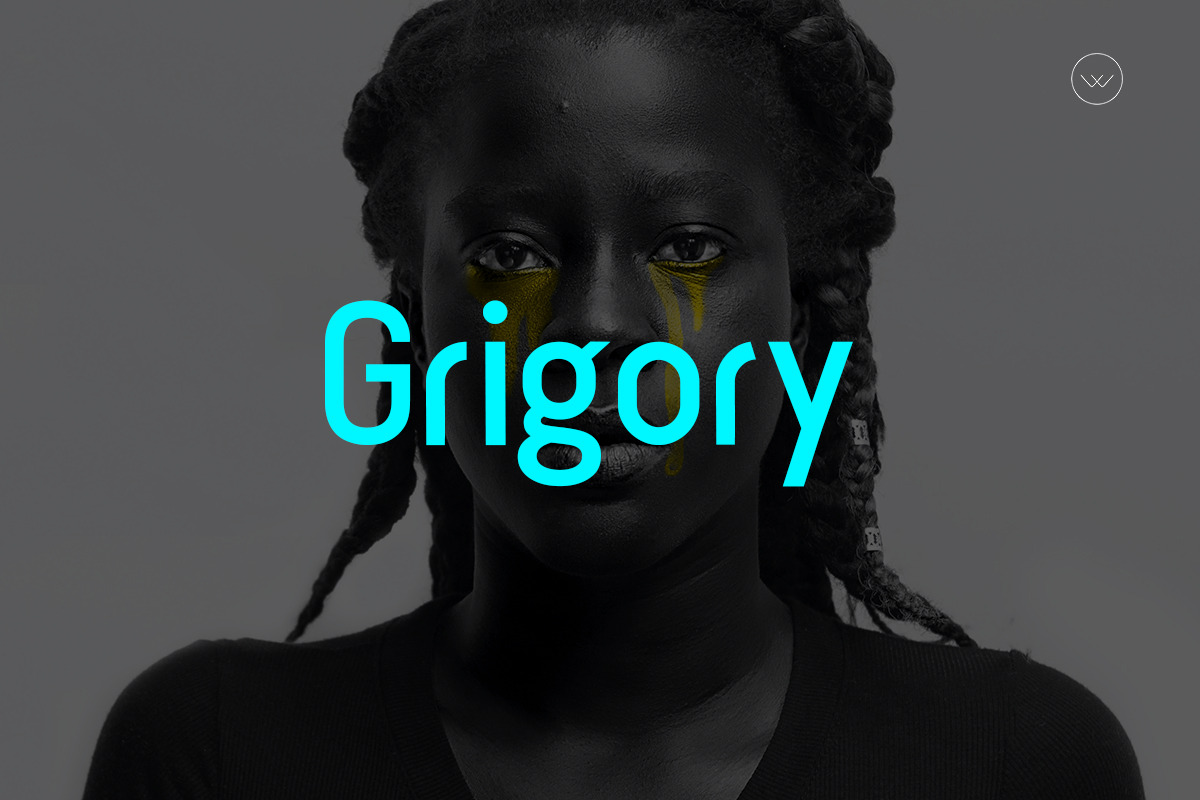
Grigory Modern Typeface
Grigory is a modern Sans Serif typeface very much suitable for Film Posters, headlines, Block letter, Subheadings, Logo Designs, Big Banners. Classic & Decorative Typography Web Designs.